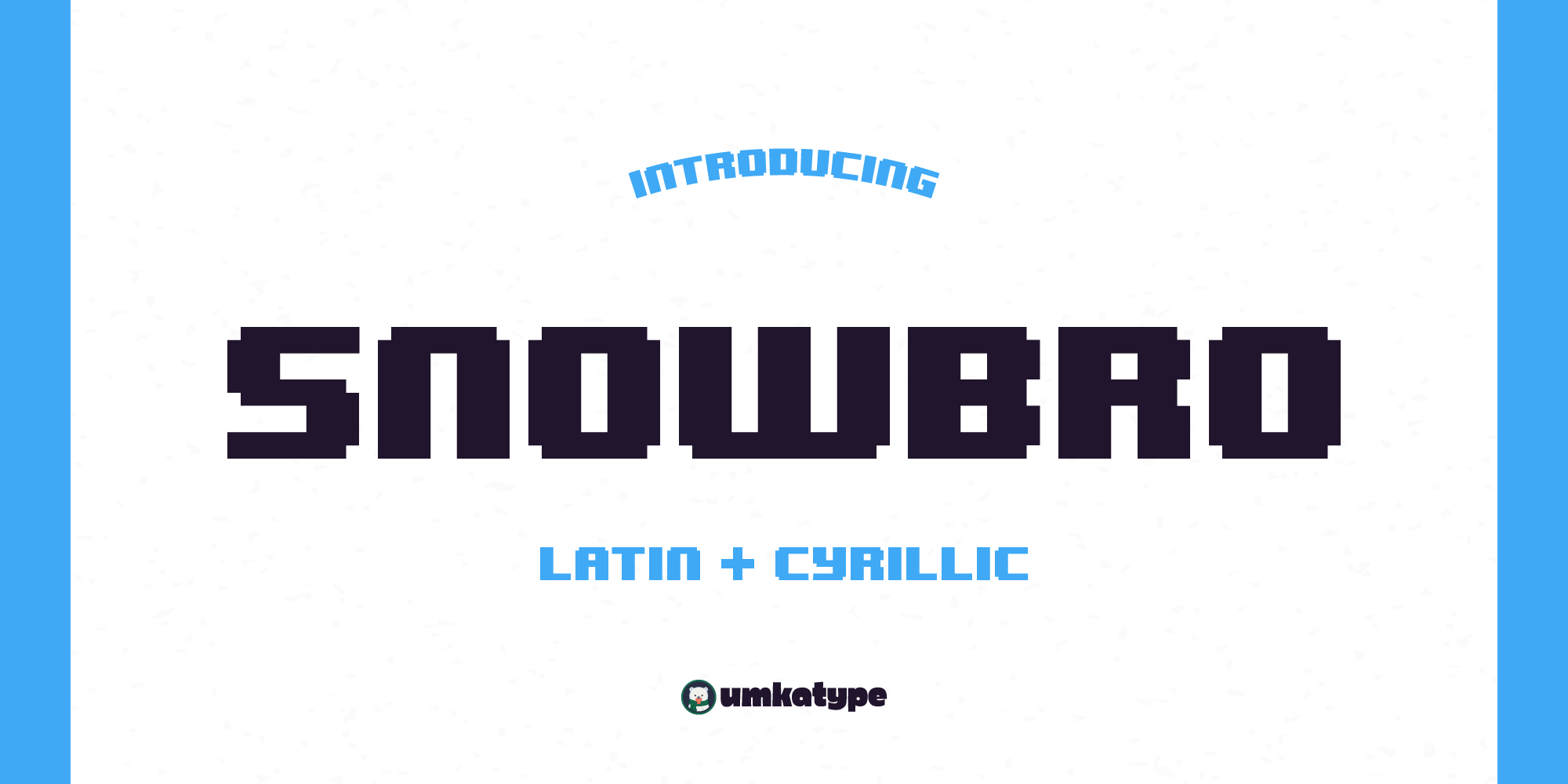
Discover the bold Snowbro Font Free Download, a pixelated display typeface designed by Alper Çakıcı and published by Umka Type that captures a retro video game aesthetic. This font is perfect for creating a nostalgic, digital vibe. However, please note that you must purchase this font for commercial use. For testing purposes, you can download it for free and explore its vibrant style.
The Snowbro Font is ideal for various applications, such as designing retro-themed posters, crafting pixel art logos, creating engaging game interfaces, or adding a nostalgic touch to social media graphics and branding. Its extended Latin and Cyrillic character support makes it a top choice for multilingual projects with a classic arcade feel.
Why is the Snowbro Font Free Download so exciting? Its bold, blocky design with a pixelated, retro aesthetic evokes the charm of 1990s arcade games like "Snow Bros. - Nick & Tom." The font’s clean, uniform strokes ensure your designs stand out with a playful yet professional digital edge, perfect for eye-catching creative projects.
The Snowbro Font family includes a single style, Snowbro Regular, offering a focused design with webfont formats (TTF, OTF, WOFF, WOFF2) for versatility. This streamlined typeface is ideal for both print and digital media, ensuring consistent impact across platforms.